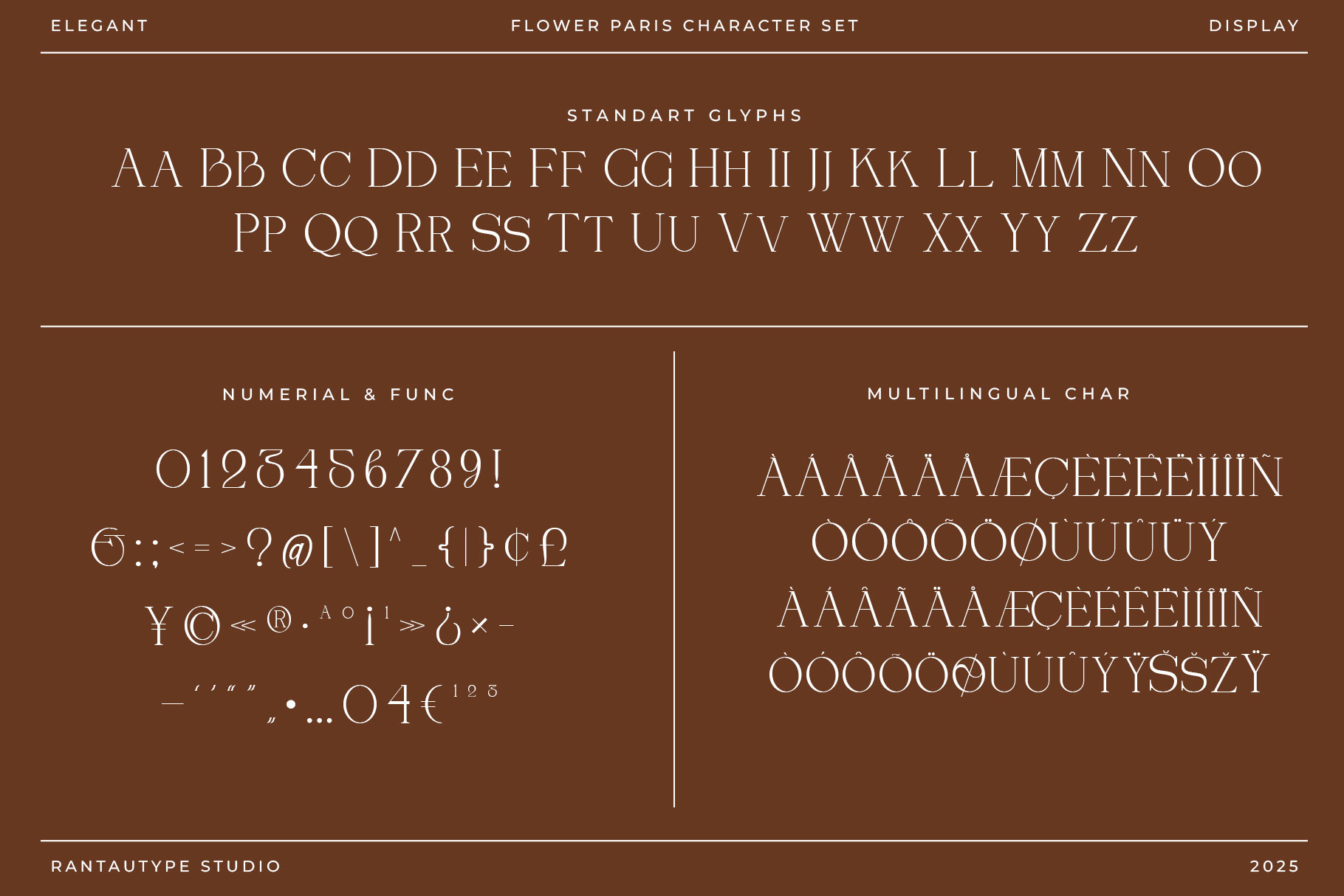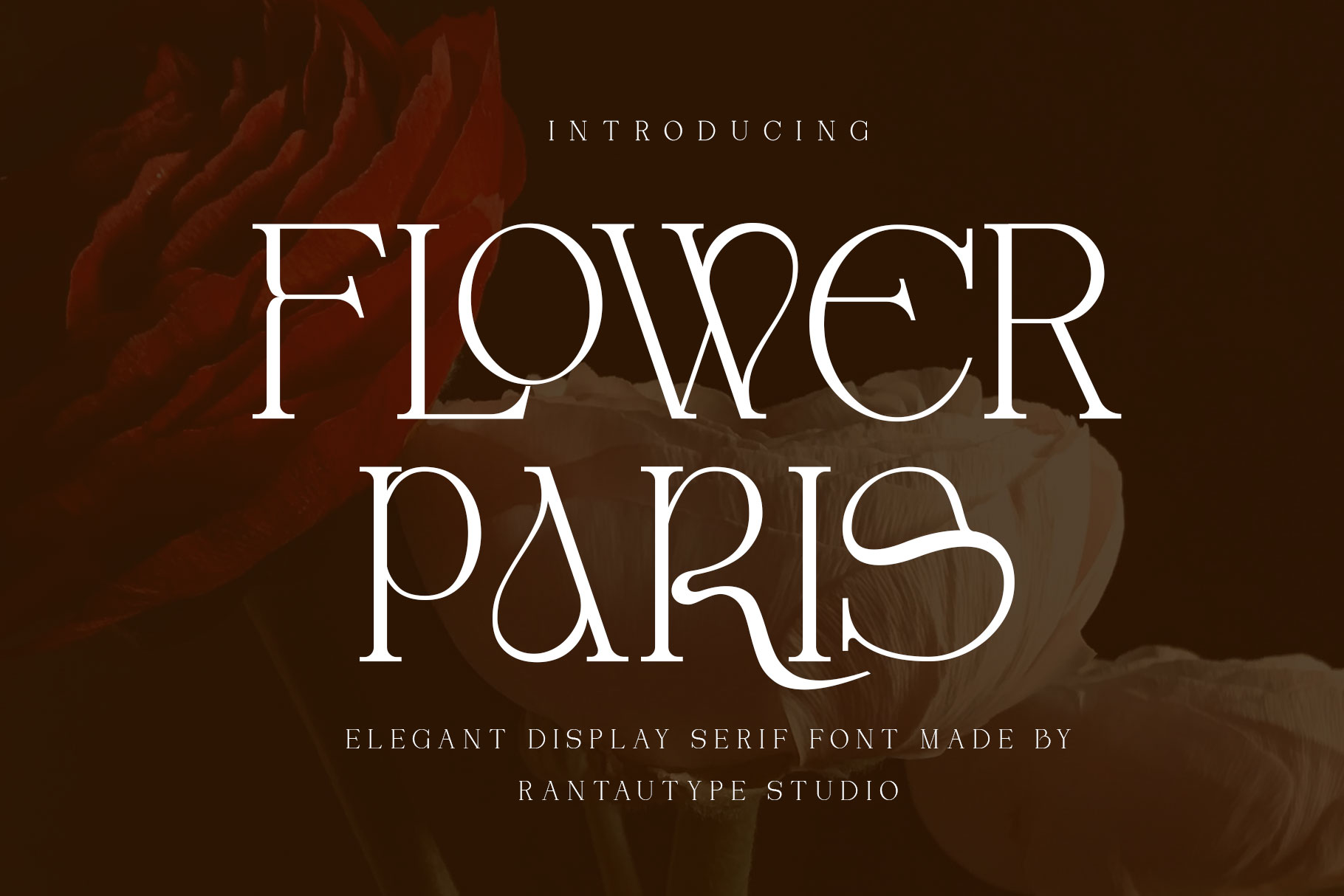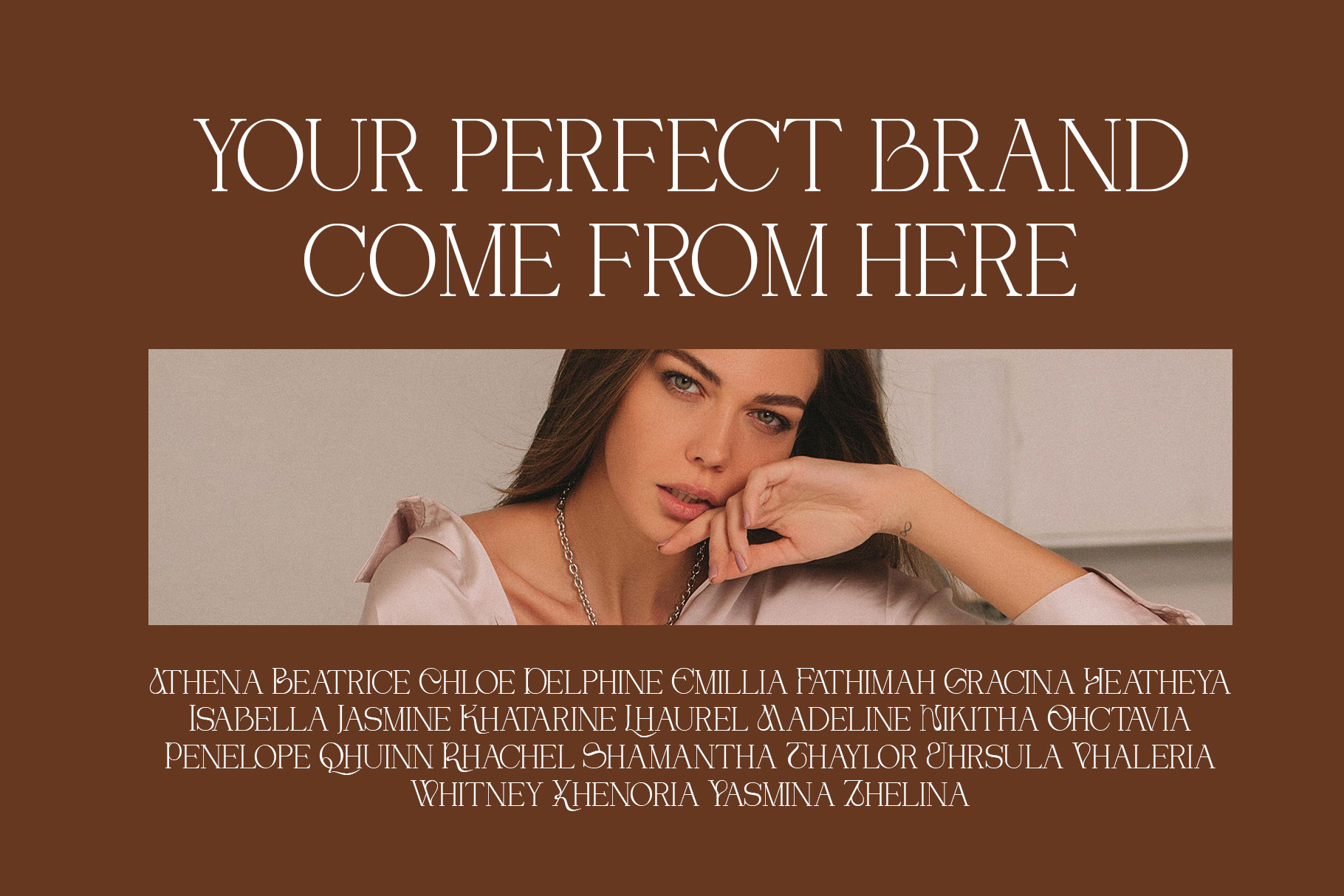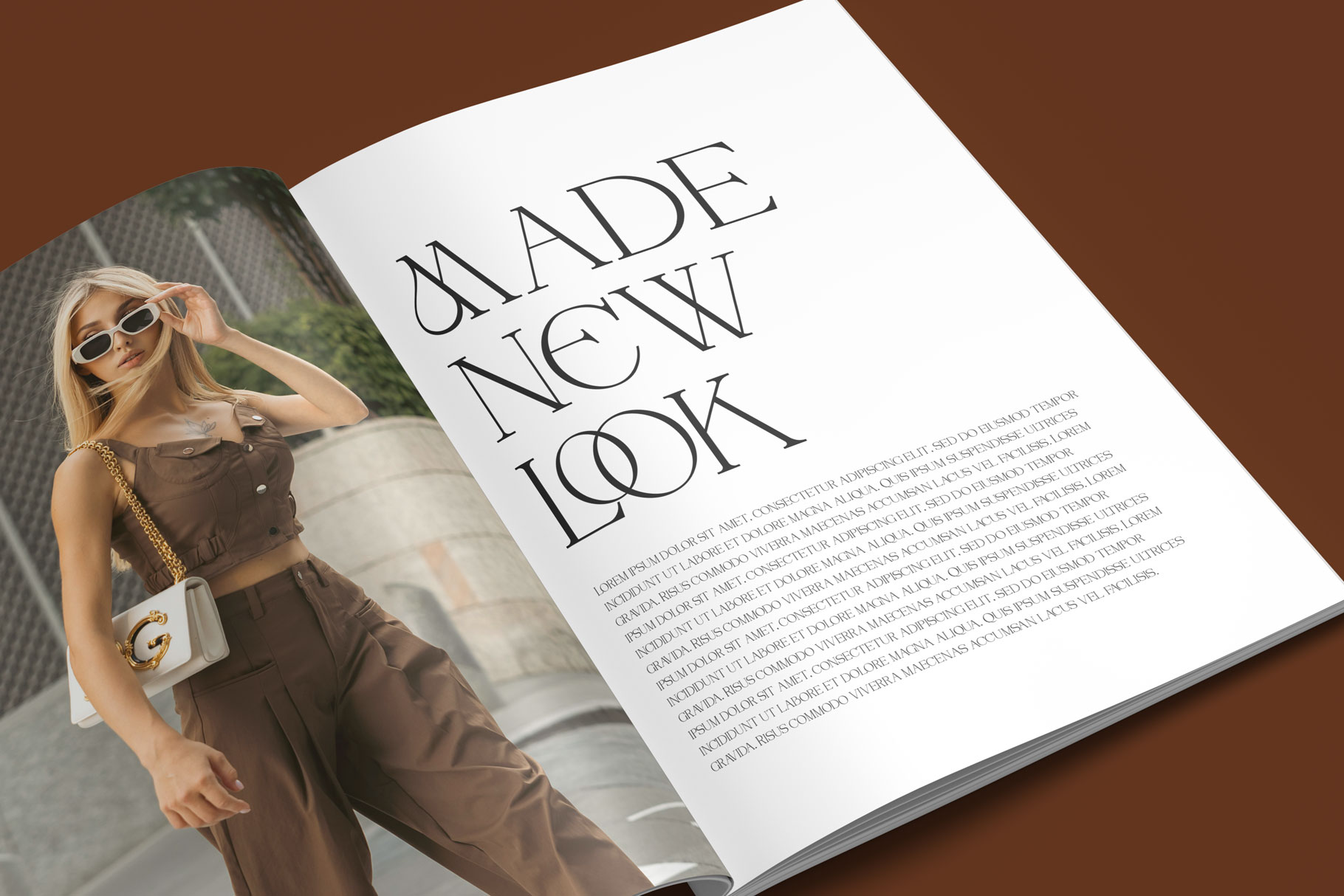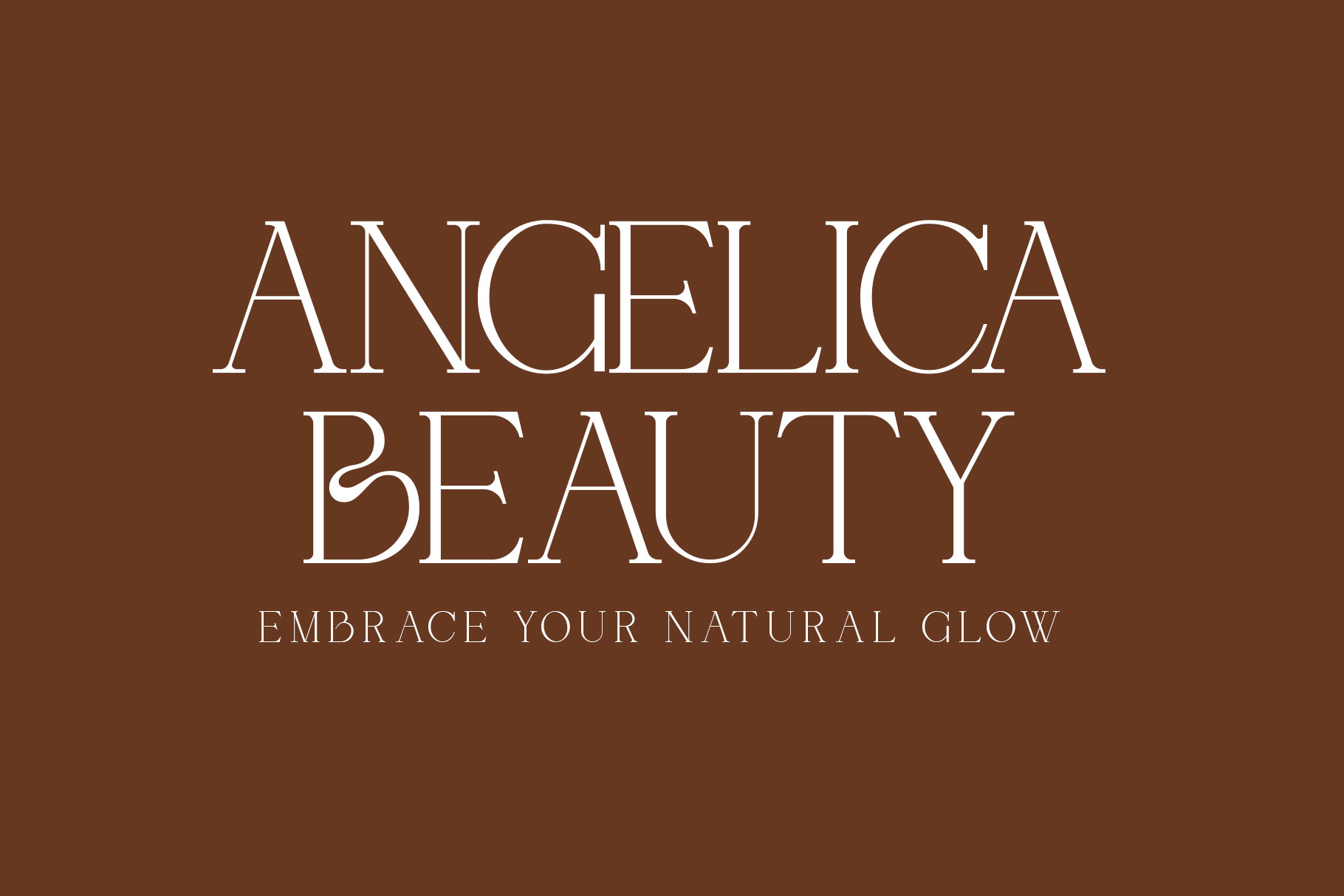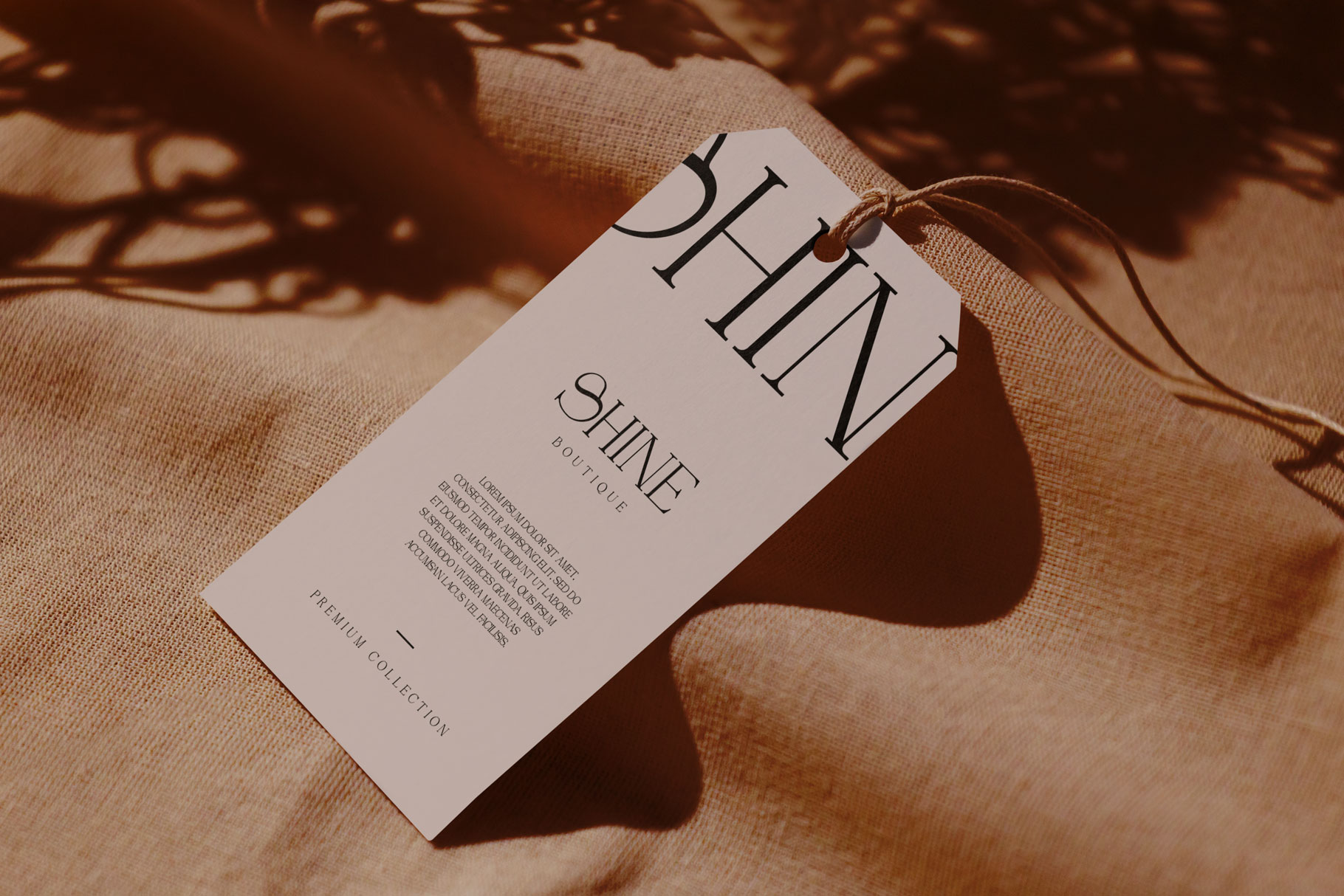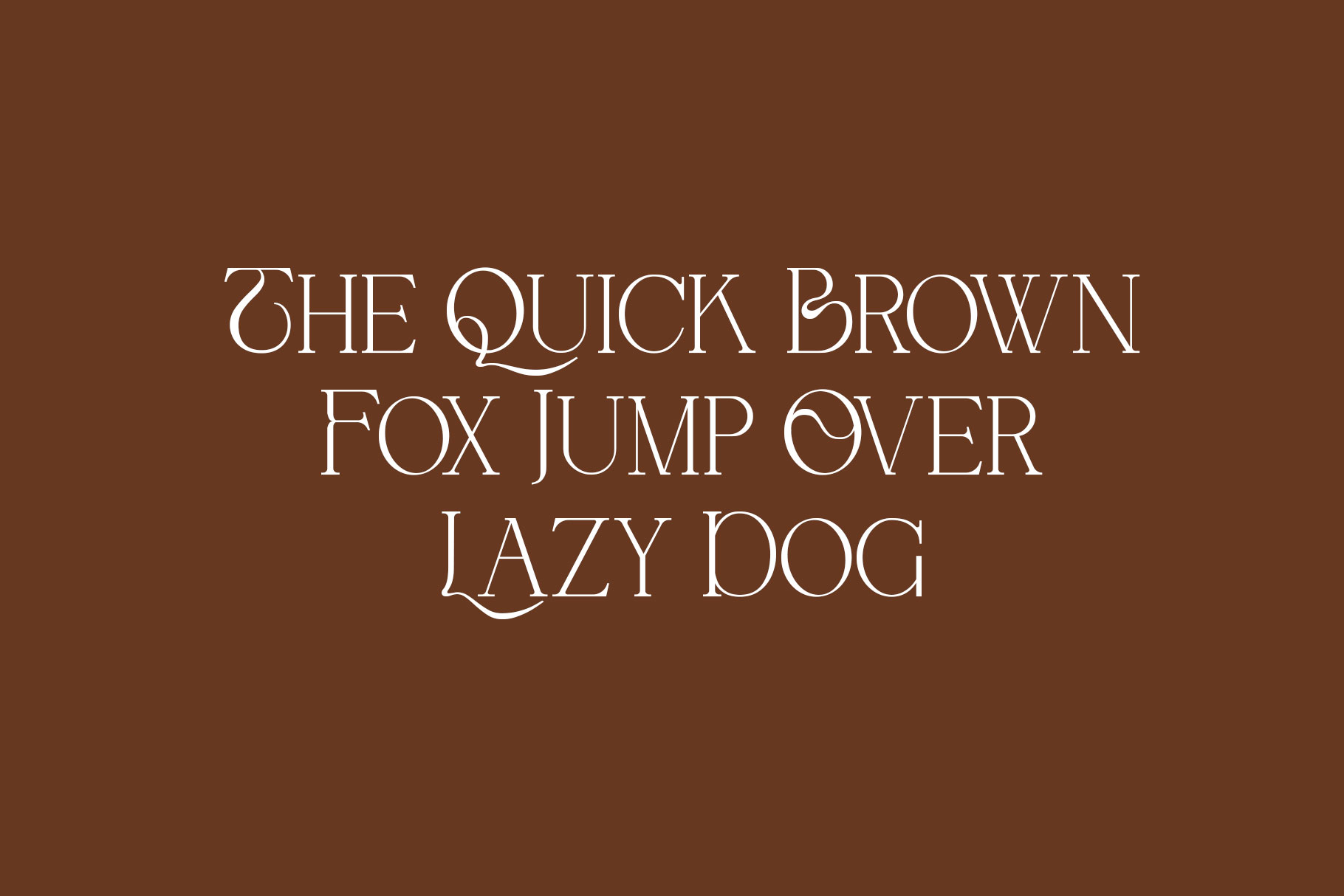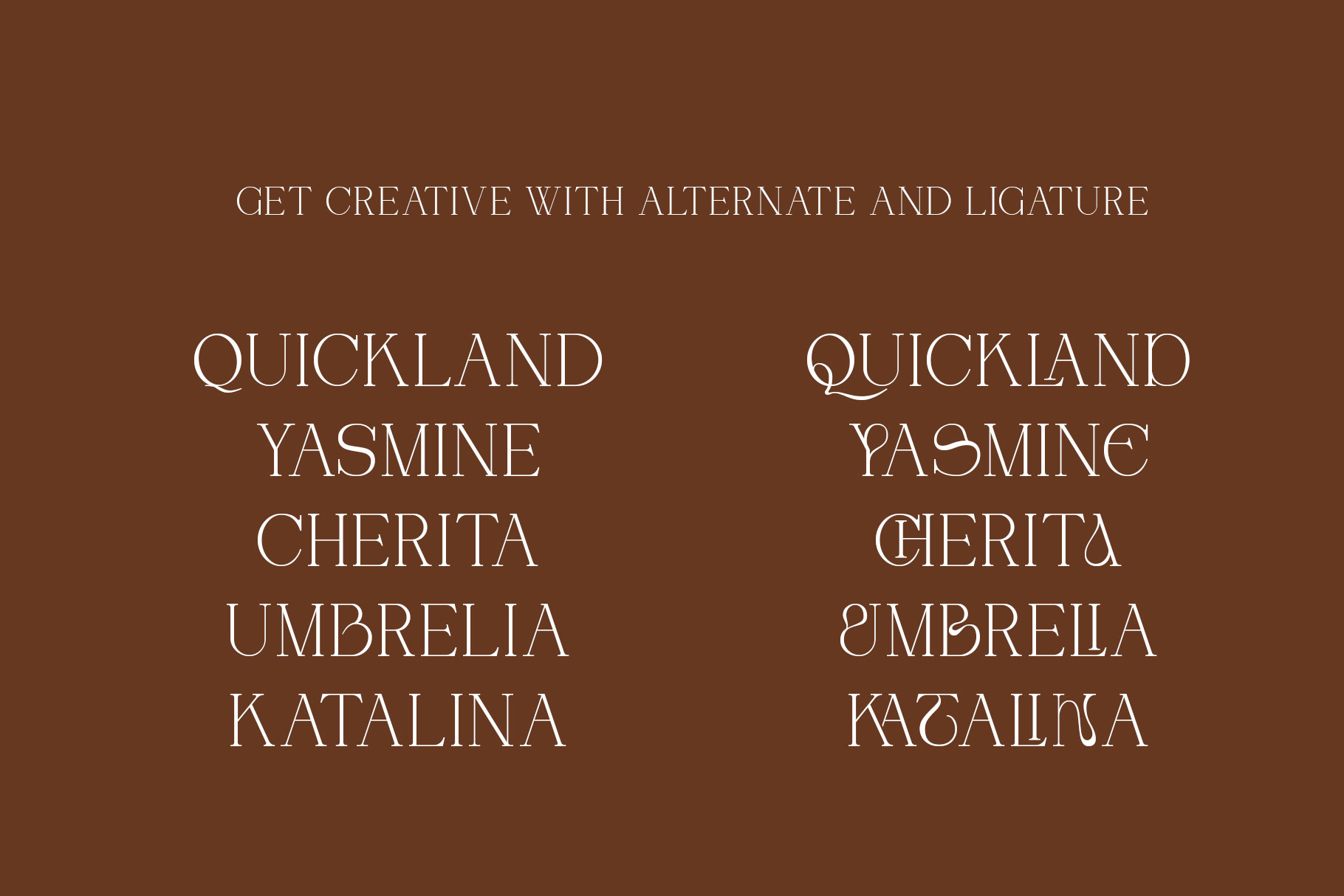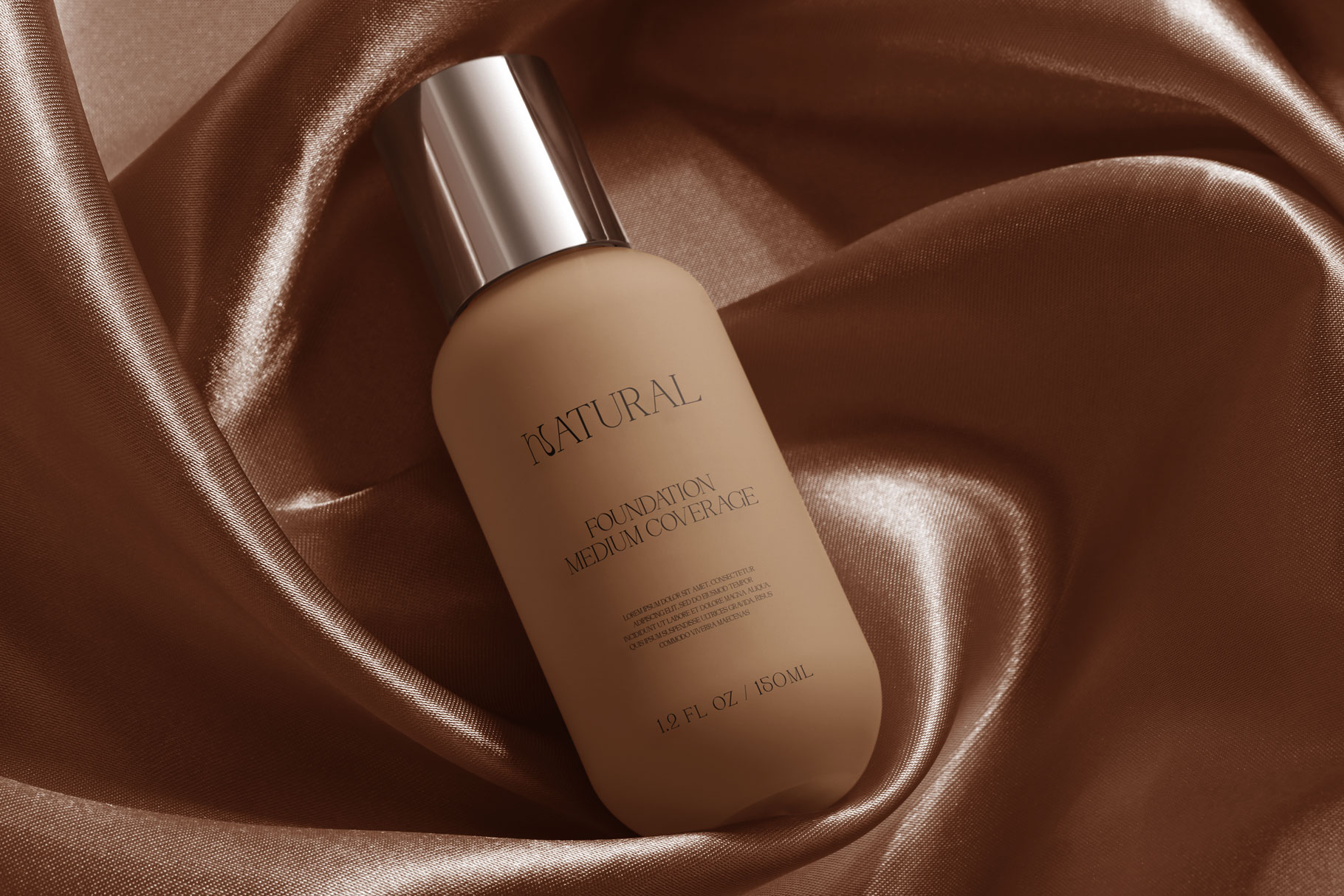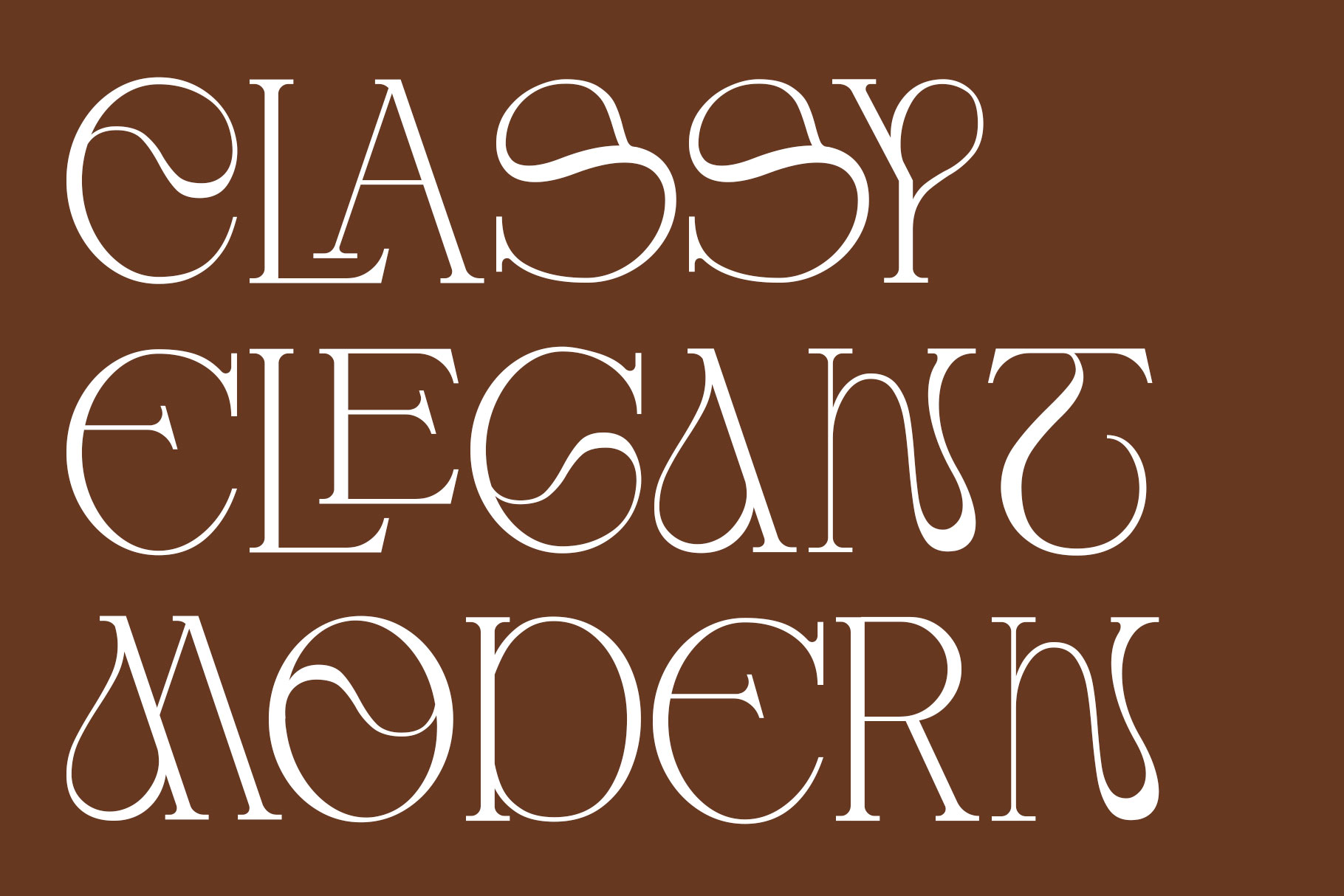
Flower Paris Elegant Display Font
Flower Paris is elegant display font made by rantautype studio. Flower Paris is a perfectly choice for any creative endeavor, creating, modern, lifestyle design such as logotype, title, cover, branding, invitations, wedding designs, display and magazine, social media posts, advertisements, printed quotes, product packaging, corporate brand, product designs, labels, photography, watermarks, special events and any other project with elegant touch.